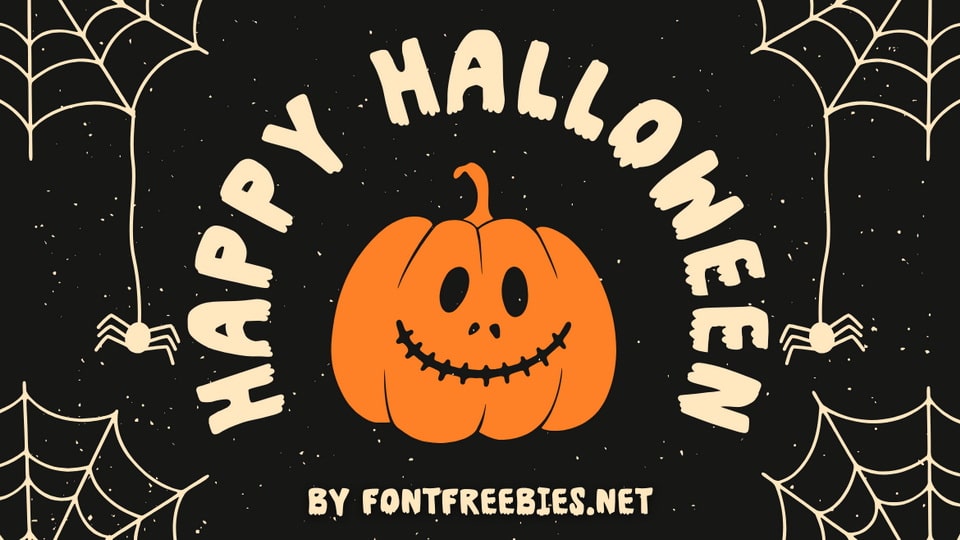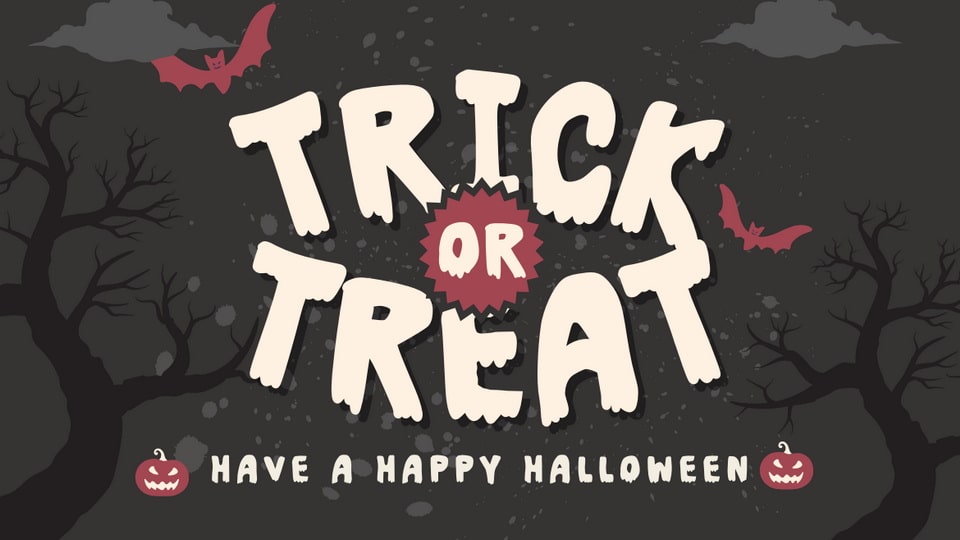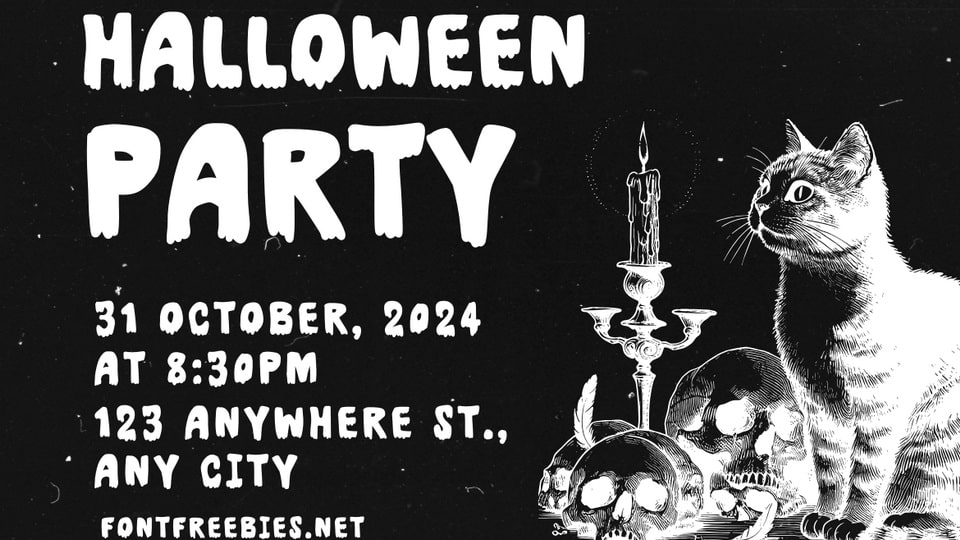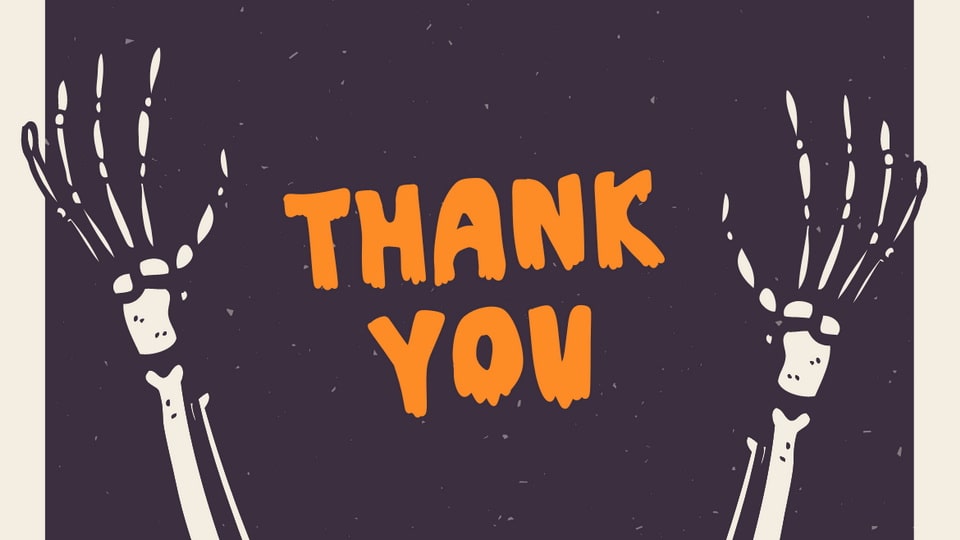
Boss Ghost is a bold and playful font designed to capture the spirit of Halloween.
With chunky letters and a hint of ghostly charm, this font is perfect for adding a fun yet spooky feel to your creative projects.
Whether you’re designing for digital or print, Boss Ghost brings an air of whimsy and fright to everything from event flyers to social media graphics.